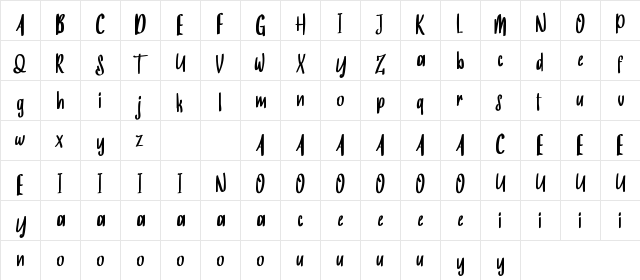
Burning Sun Demo Regular
| Foundry | Edric Studio |
| Designer | Fajar Saepul Rohman |
Design Context for Burning Sun Demo Typeface
Burning Sun Demo is a composed and adaptable typeface that performs quietly and consistently across a wide range of design contexts.